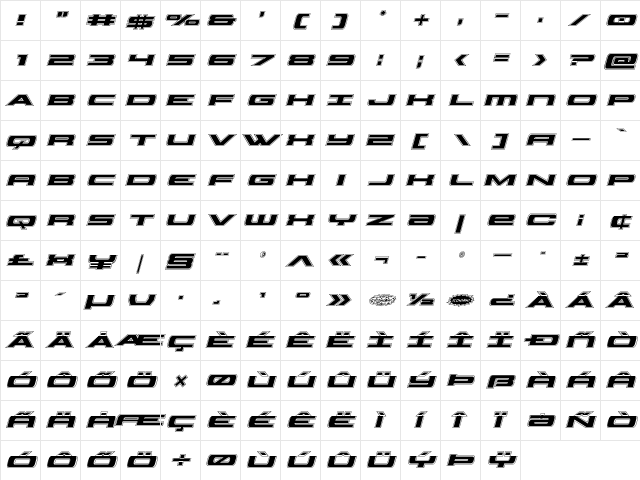
Classic Cobra Academy Italic Italic
Design Context for Classic Cobra Academy Italic Typeface
Classic Cobra Academy Italic has the warm character of retro typography — evoking diners, record sleeves, and the golden age of print advertising. The slanted form adds forward momentum and visual energy.
Font Pairing: Combine Classic Cobra Academy Italic with a simple slab or neutral sans — period-accurate companions reinforce the vintage feel without competing for attention.
Pro Tip: Lean into Classic Cobra Academy Italic's period character by pairing it with aged paper textures, muted colour palettes, and vintage illustration styles.